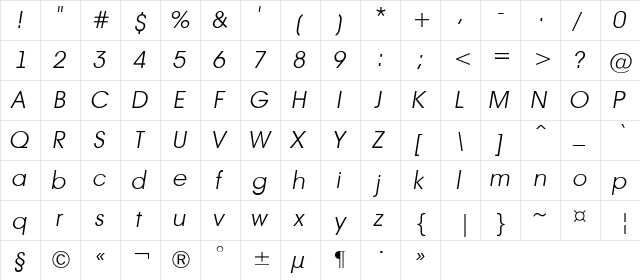
a_AvanteLt LightItalic
Design Context for a_AvanteLt Typeface
a_AvanteLt offers clean, dependable letterforms without strong stylistic allegiance, making it a practical choice for designers who need flexibility. The dynamic lean of this cut emphasises speed and emphasis in any layout. Its slender proportions lend an understated elegance to any composition.
Pro Tip: Try a_AvanteLt for annotation and caption copy alongside an upright companion — the contrast in angle creates a dynamic but ordered typographic system.